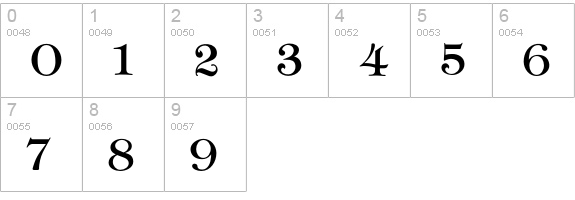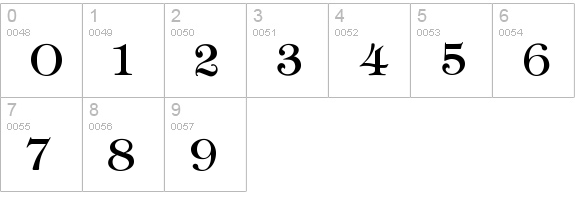
TiffanyMedium Font Details
TiffanyMedium is a modern and versatile font that combines elegance with readability. Designed with clean lines and balanced proportions, this font is perfect for a wide range of design projects, from branding and logos to invitations and headlines. With its medium weight, TiffanyMedium strikes the perfect balance between being bold enough to make a statement and light enough to maintain legibility. Its timeless aesthetic makes it suitable for both digital and print designs, ensuring that your message will be conveyed with clarity and sophistication. One of the best features of TiffanyMedium is that it is freely available to download at FontsMarket.com. This means that you can easily access this beautiful font without any cost or hassle. Whether you are a professional designer or a casual user, you can now enjoy the benefits of this premium font without breaking the bank. The versatility of TiffanyMedium is further enhanced by its extensive character set, which includes punctuation, numerals, and a wide range of special characters. This allows you to add a touch of uniqueness and creativity to your designs, making them stand out from the crowd. In addition to its aesthetic qualities, TiffanyMedium is also optimized for readability. Each letter is meticulously crafted to ensure that it is easily distinguishable, even at small sizes. This makes it an ideal choice for body text, ensuring that your written content is not only visually appealing but also effortless to read. Whether you are designing a website, creating a brochure, or crafting a social media post, TiffanyMedium is the perfect font to elevate your design to the next level. With its elegant yet readable style and its availability for free download at FontsMarket.com, this font is a must-have for any design enthusiast.